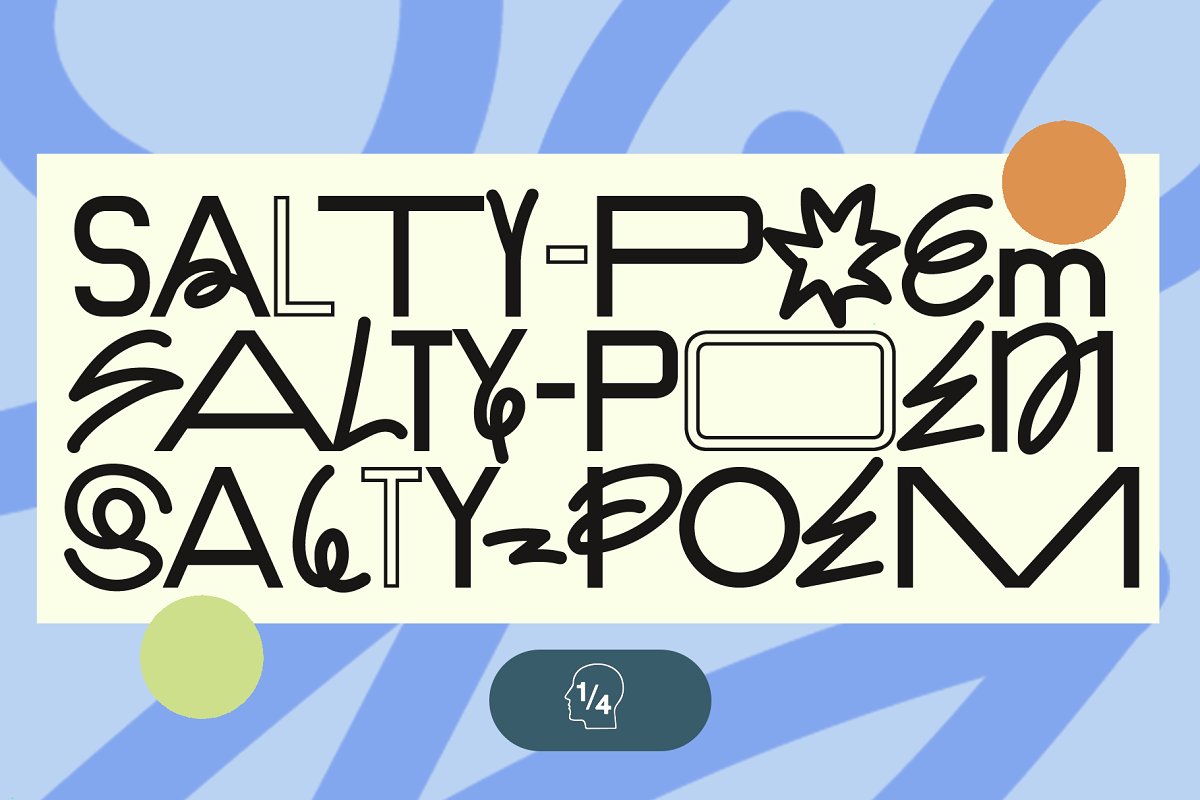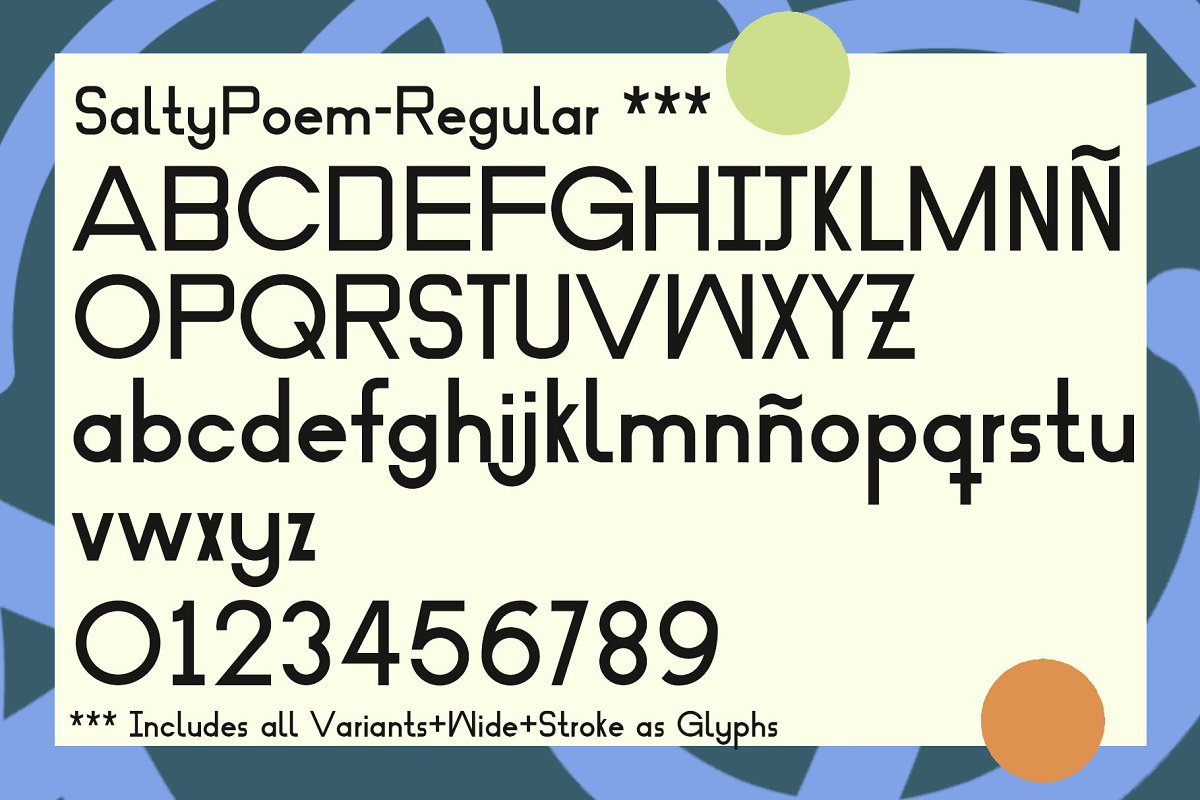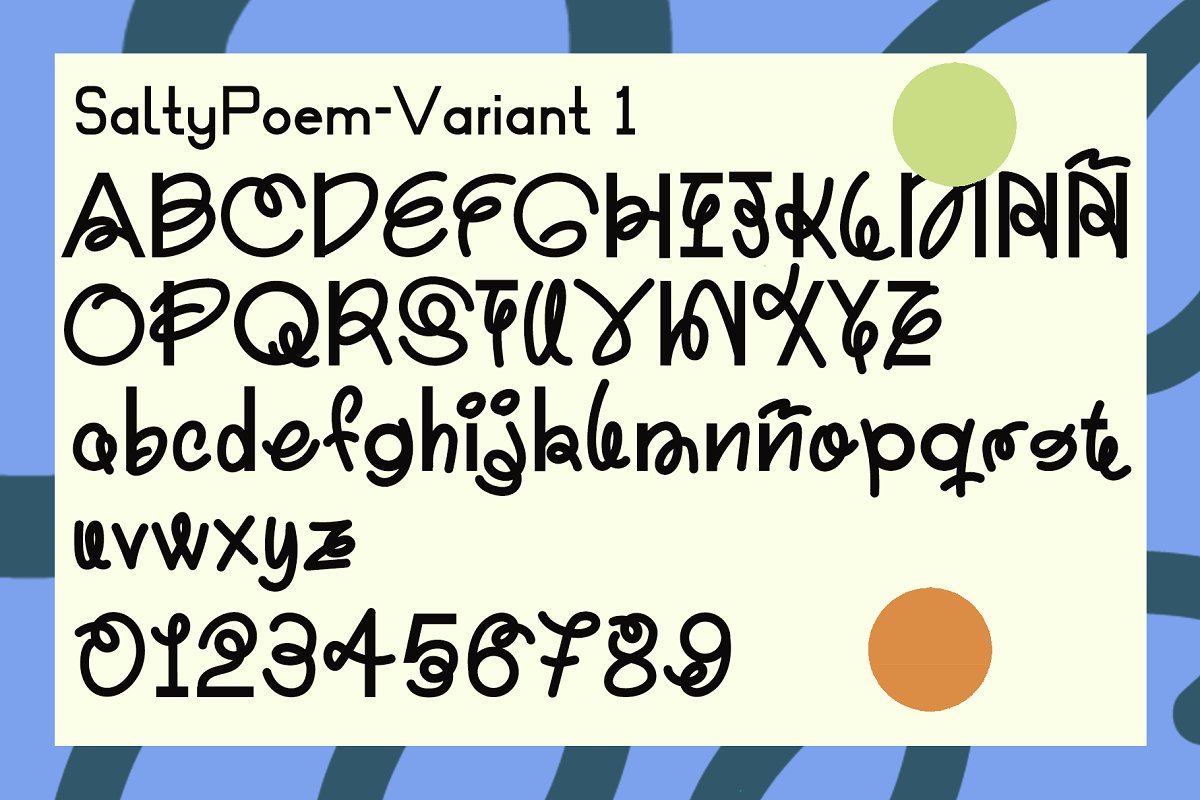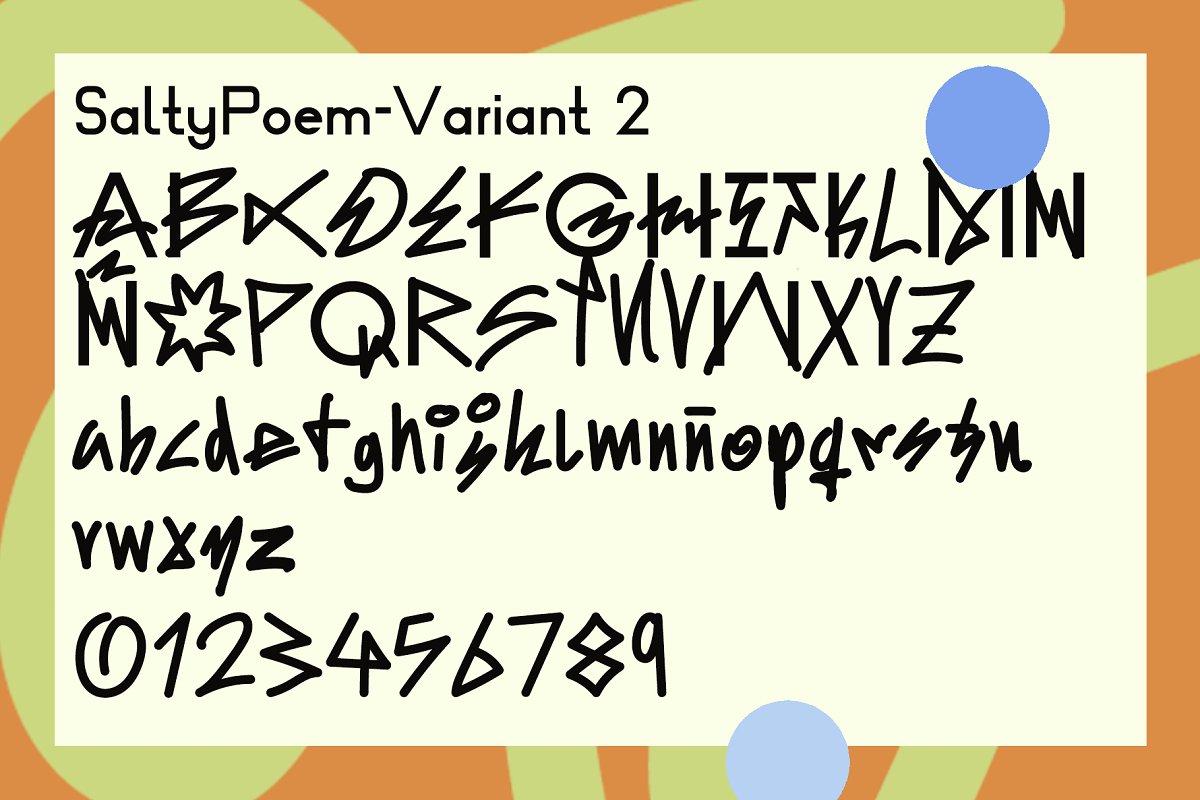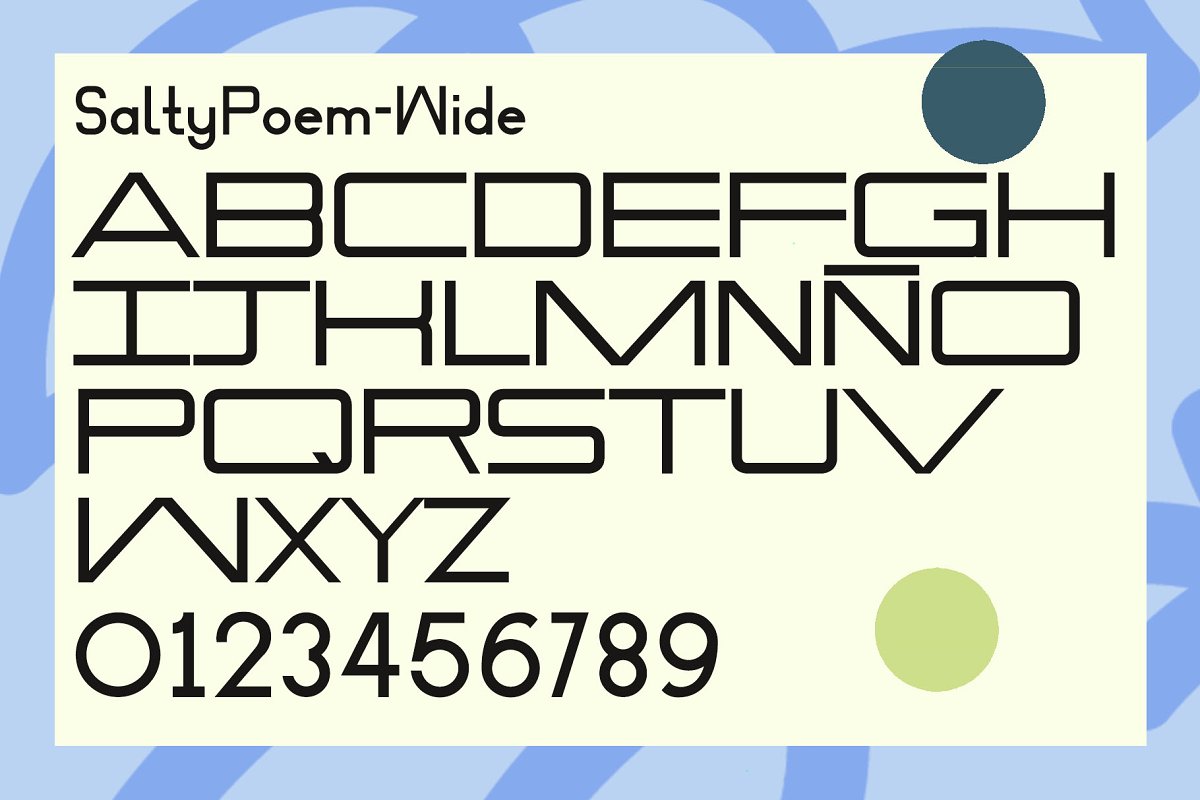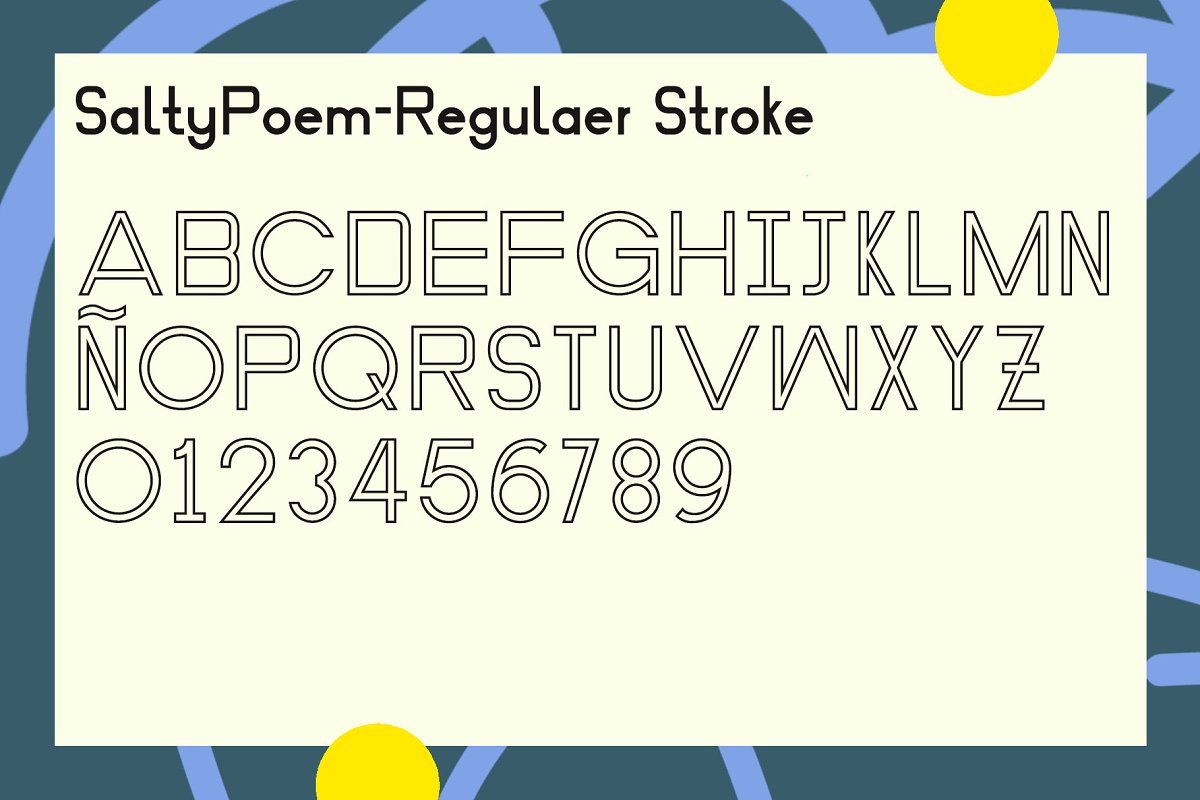
About the Salty Poem Font
Salty Poem is a modern display font that offers a fresh new look at regular fonts, Crafted with love and care, :)WHAT YOU GET6 , otf fonts:SaltyPoem (includes all fonts as Variants/Glyphs)SaltyPoem-Variant-1SaltyPoem-Variant-2SaltyPoem-Regular-StrokeSaltyPoem-Wide-StrokeWe included all other variants as fonts just in case you need only one variant HOW-TOInstall the fonts by right clicking and installing